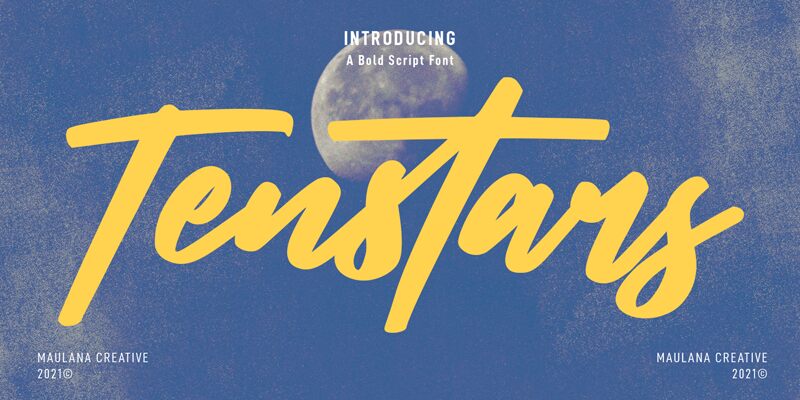
Introducing Tenstars, a bold signature-style handwritten font designed by Maulana Creative. Perfect for creating a personalized touch to projects such as wedding invitations, stationery, posters and more!
Tenstars